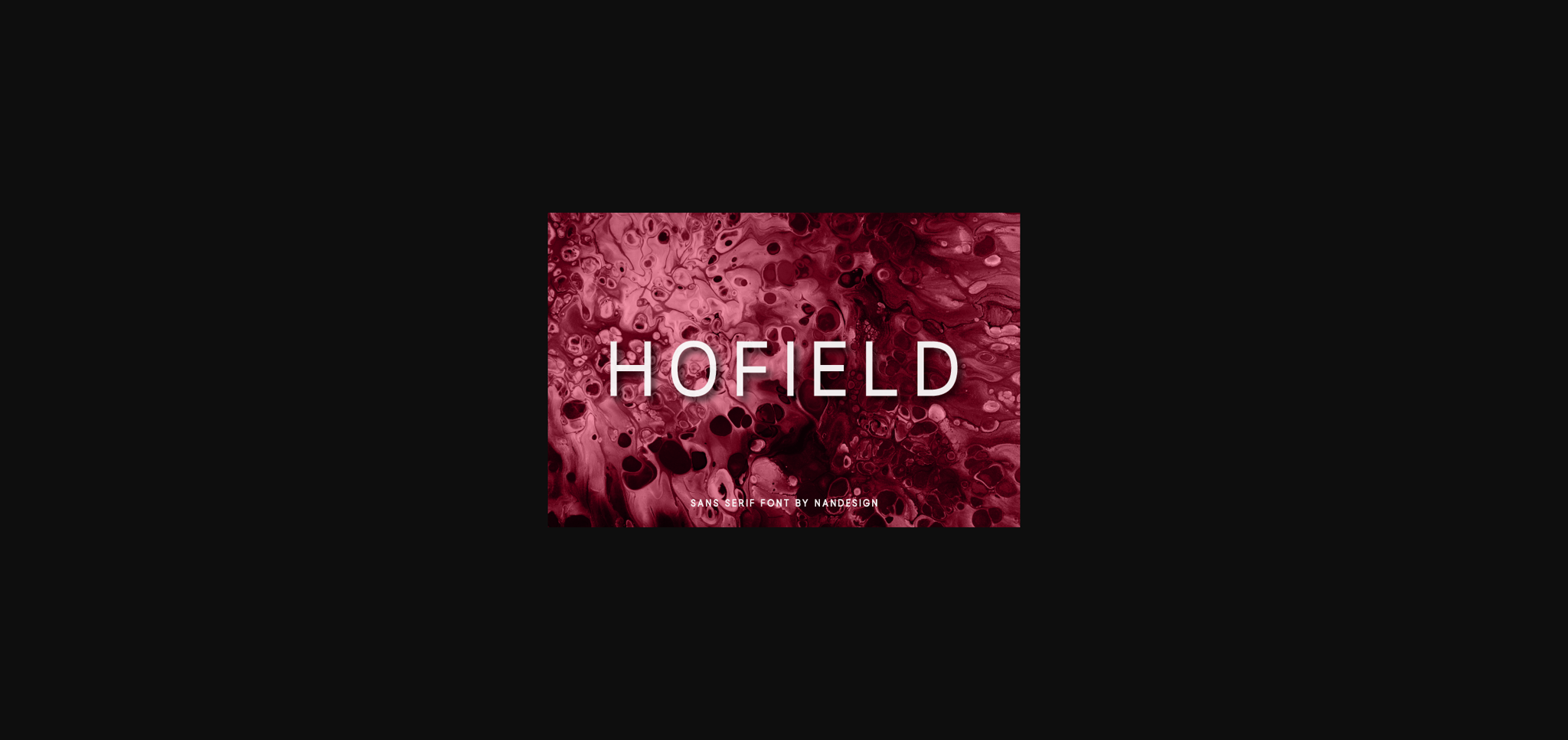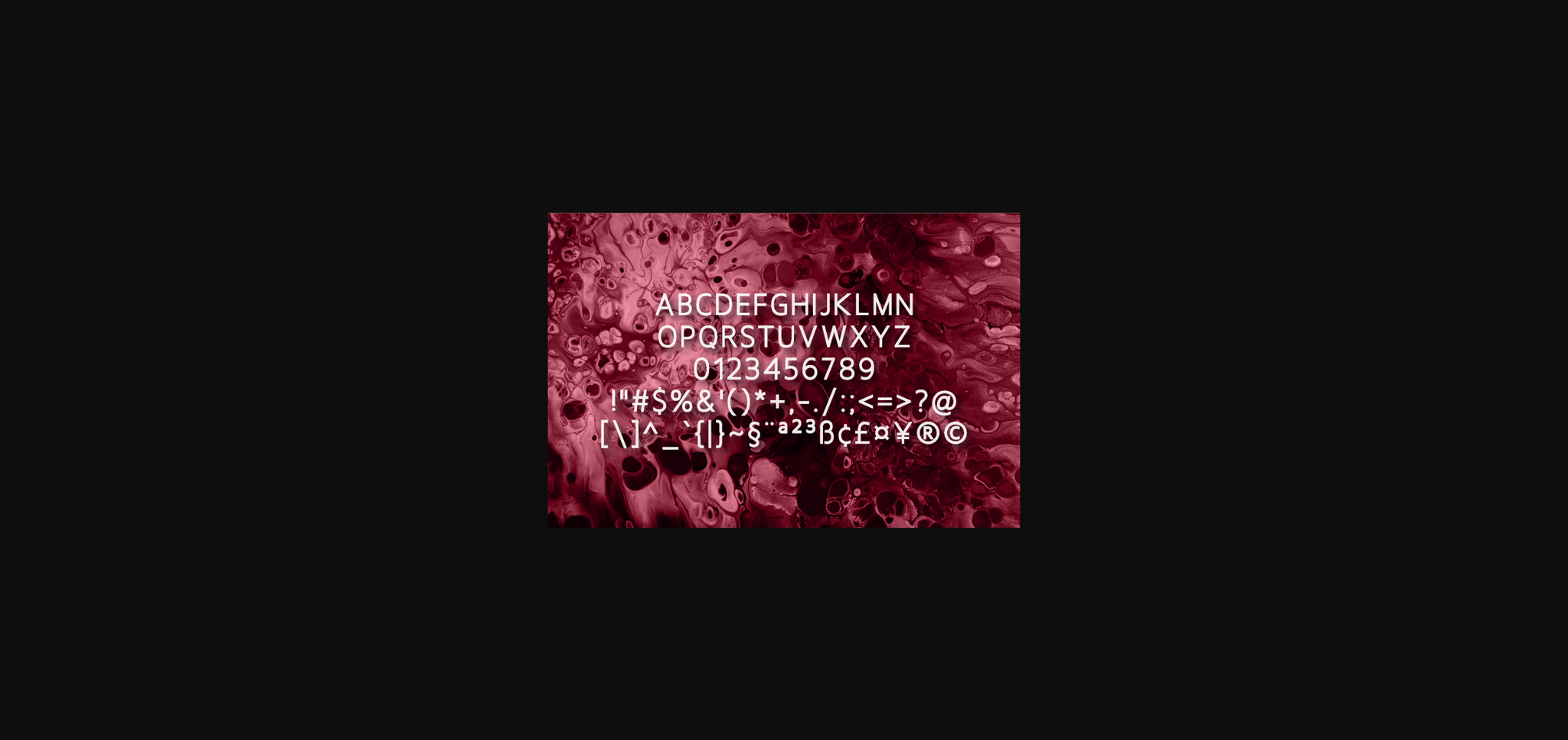
Hofield Font
About Hofield Font
Hofield is a beautiful and elegant sans serif font. Add it to your most creative ideas and notice how it makes them come alive!